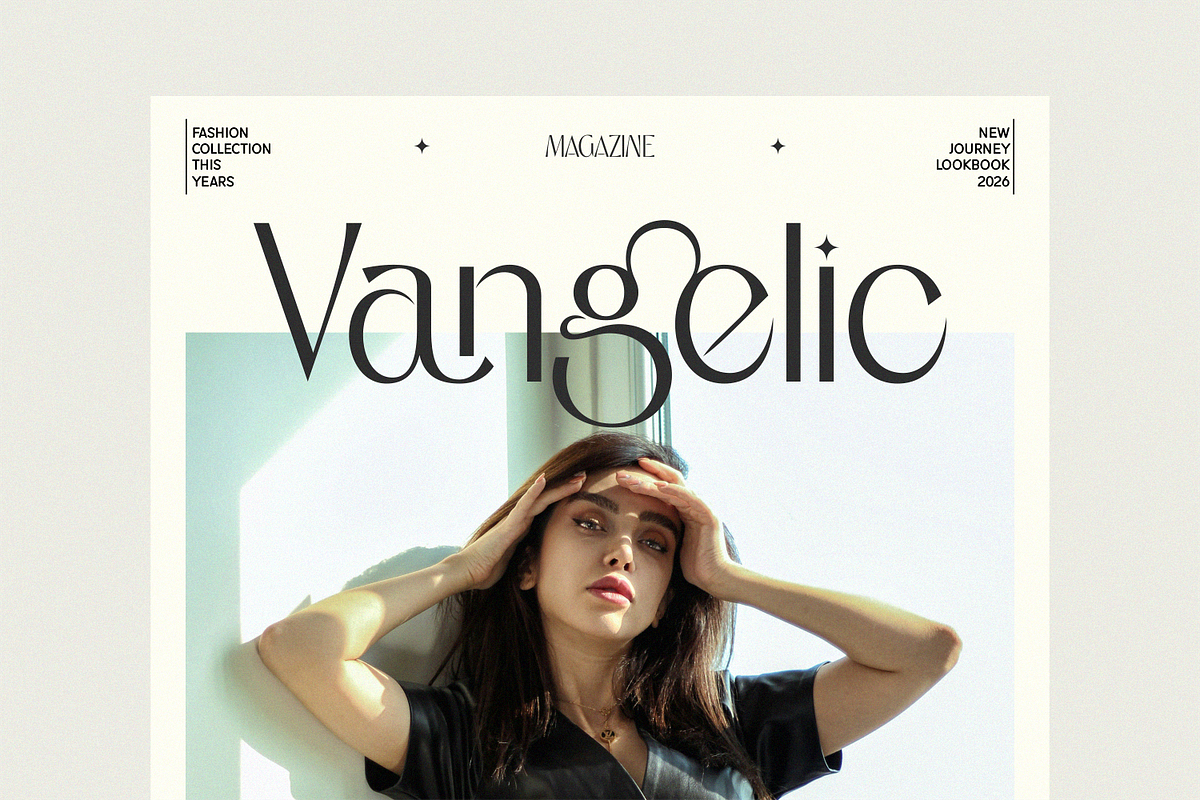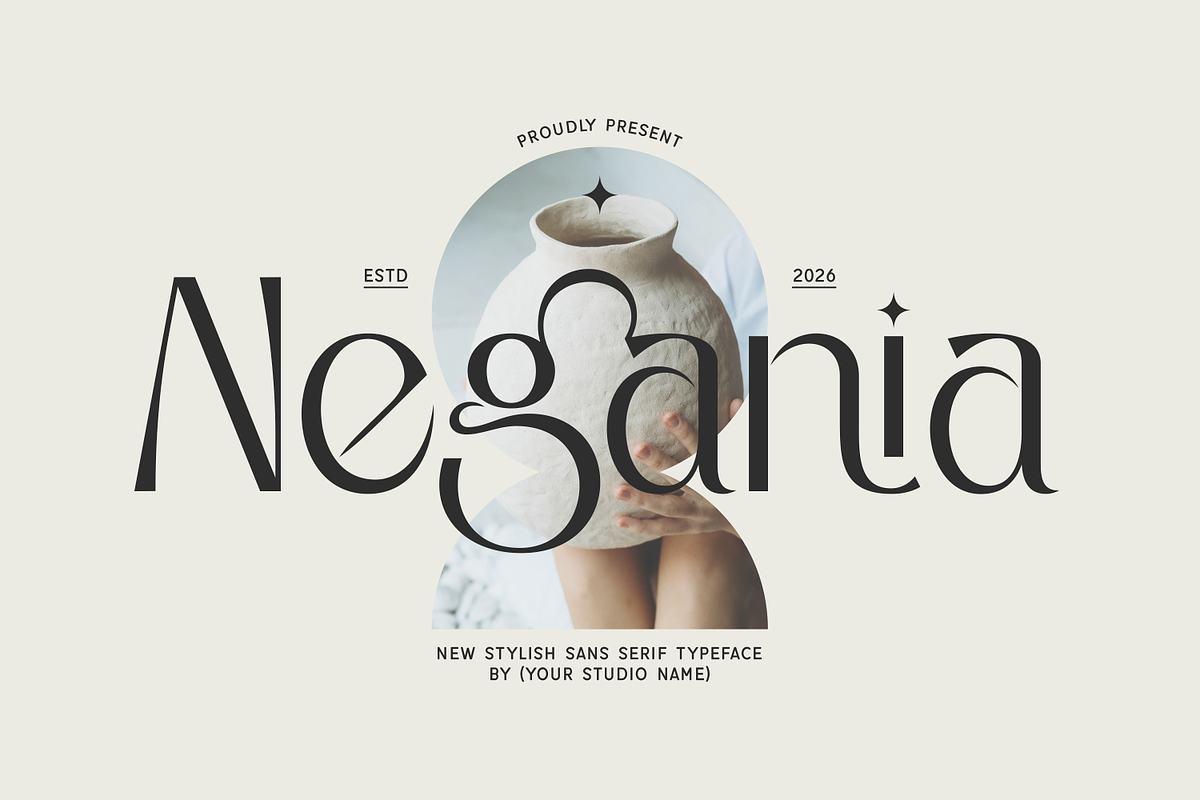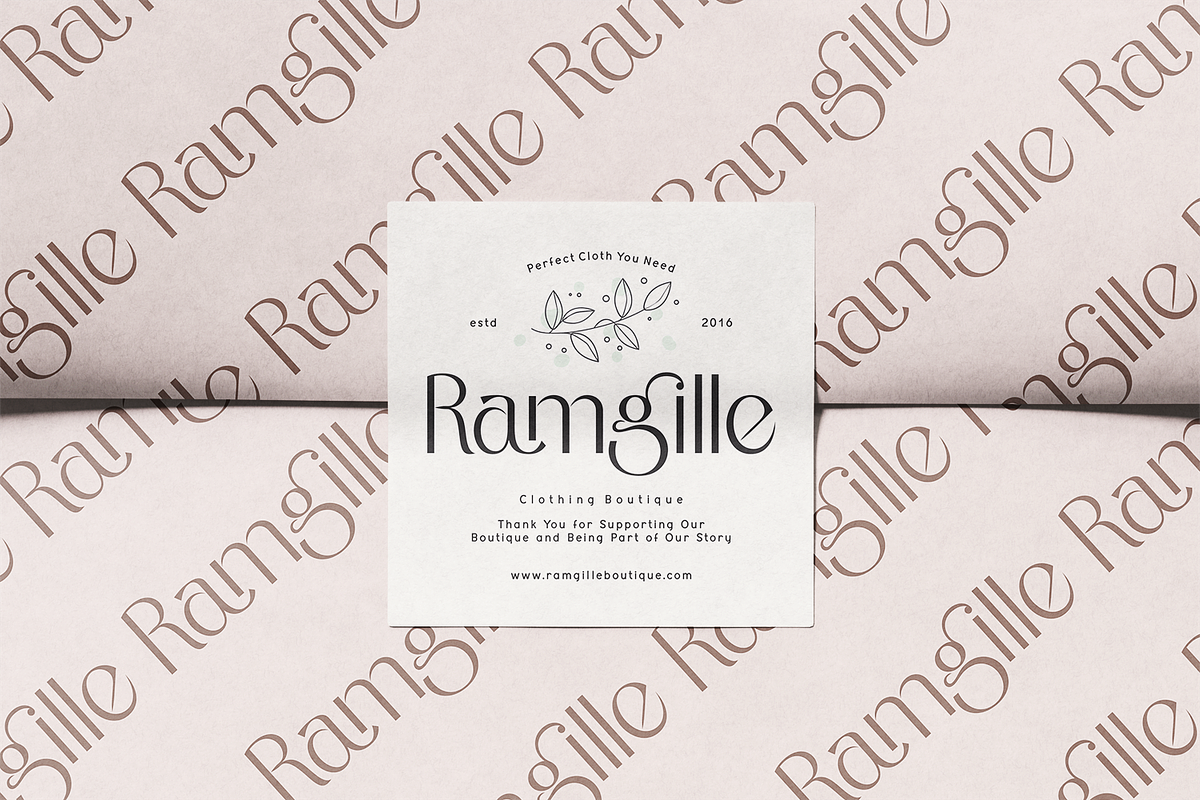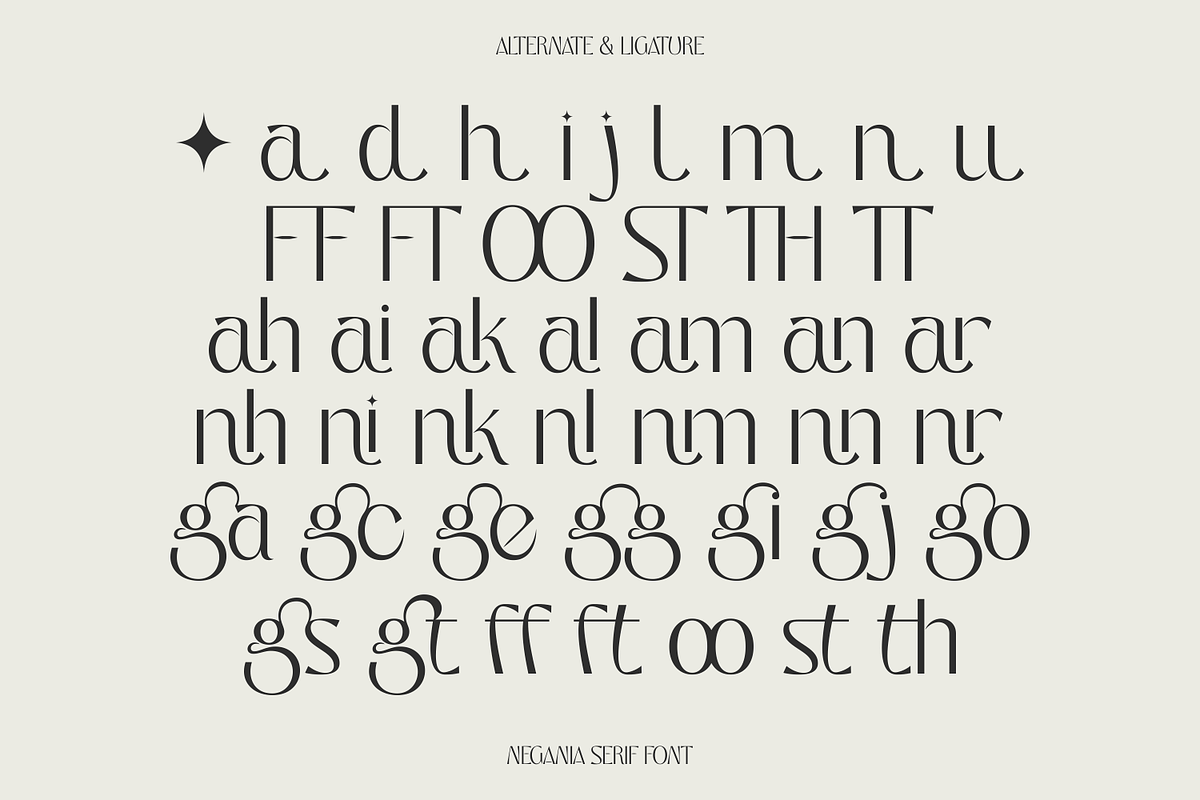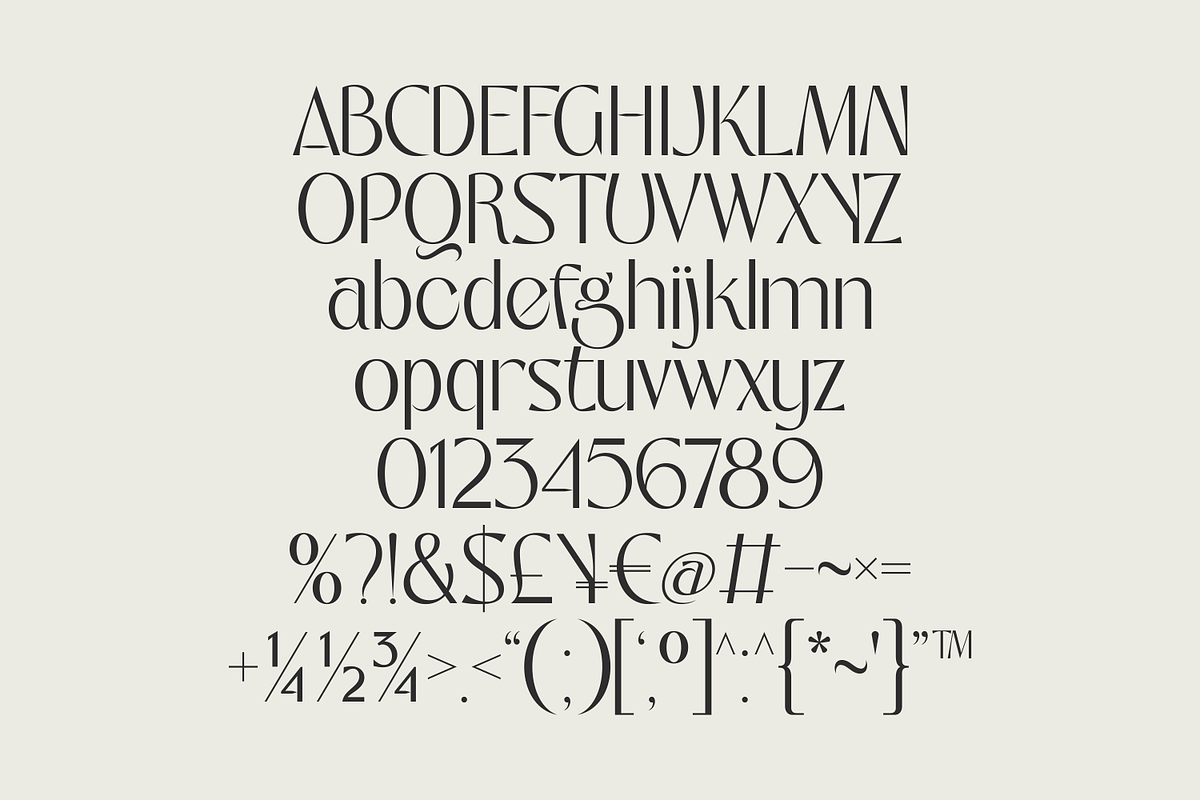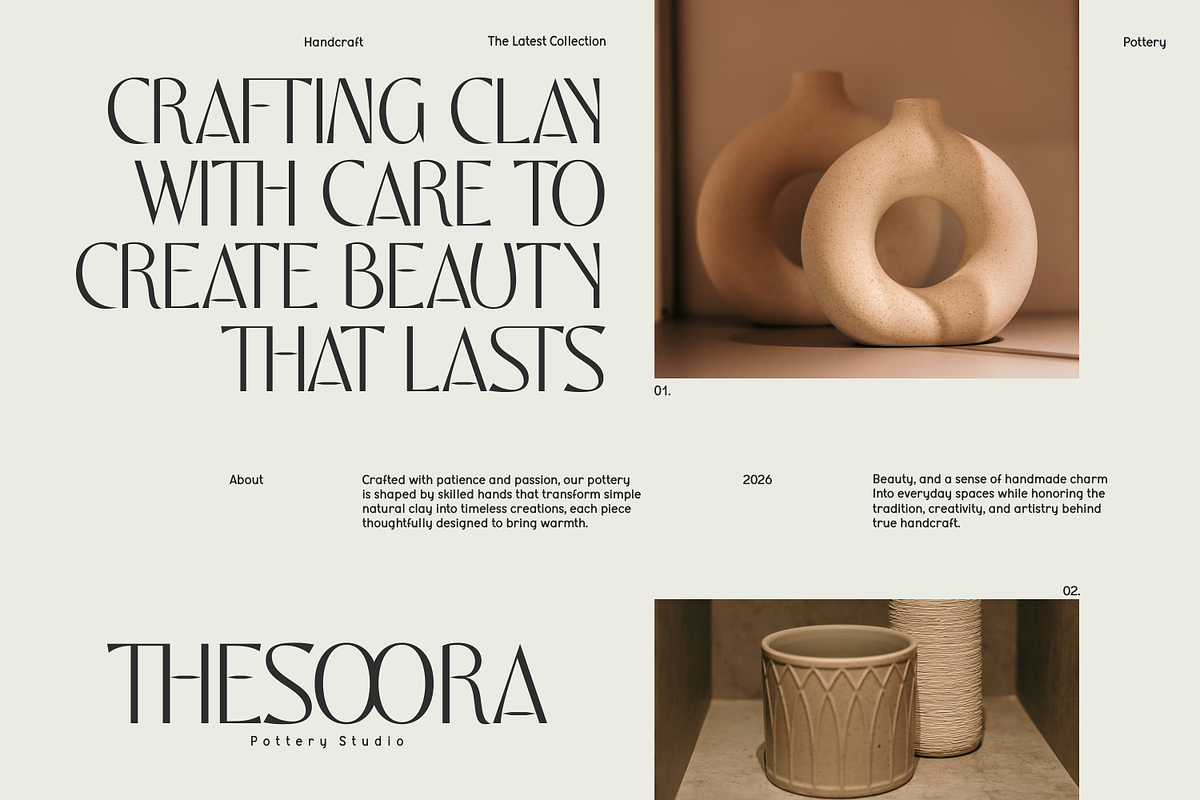
Negania – Stylish Modern Serif
Negania is a stylish modern serif typeface that blends refined elegance with a soft contemporary charm. Designed with clean structures and graceful curves, it offers a balanced look that feels both sophisticated and approachable.
Its distinctive letterforms feature subtle decorative touches and smooth transitions, creating a harmonious rhythm across every word. The gentle contrast and refined proportions make Negania highly versatile—perfect for designs that require a polished yet warm visual tone.
Ideal for branding, boutique logos, editorial layouts, packaging, and lifestyle design, Negania brings a sense of calm luxury and timeless beauty. Whether used in headlines or identity systems, it delivers clarity, style, and a refined personality.
* Uppercase & Lowercase
* Numerals & Punctuation
* Stylistic Alternates
* Ligatures
* Multilingual Support
Negania is crafted for designers who seek elegance with a modern, understated touch.